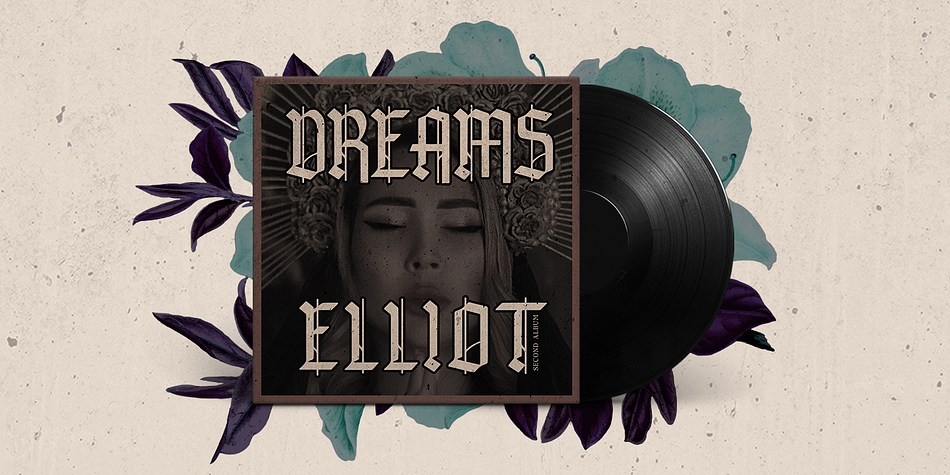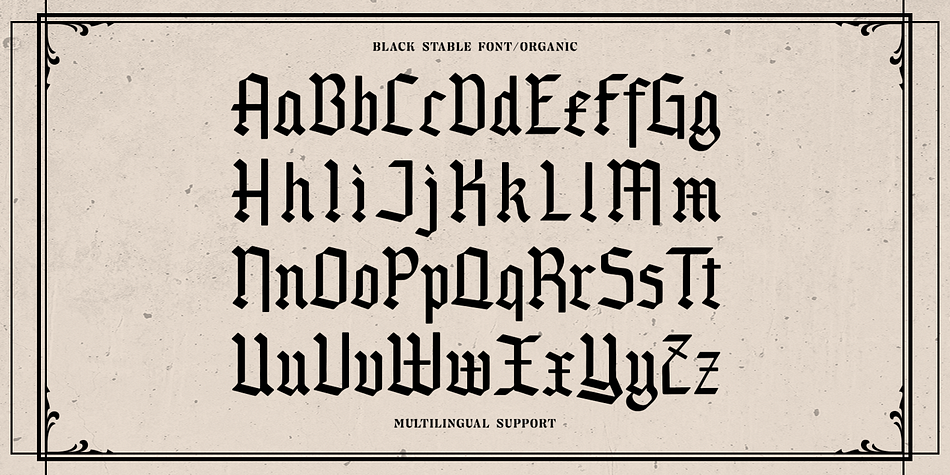
Black Stable
Designed by Hendry Juanda, Black Stable is a blackletter font family. This typeface has two styles and was published by Letterhend Studio.
Introducing, Black Stable - A modern blackletter typeface. This type of font perfectly made to be applied especially in logo, and the other various formal forms such as Logo, Clothing, Fashion, Headline, or any type of advertising purpose.
- uppercase & lowercase
- numbers and punctuation
- stylistic alternate
- multilingual